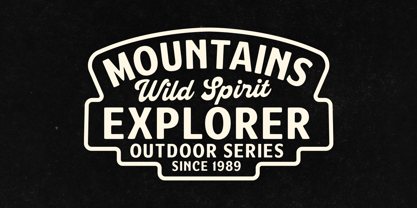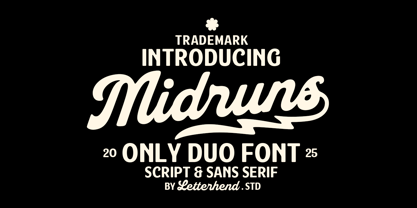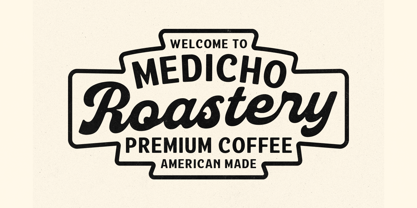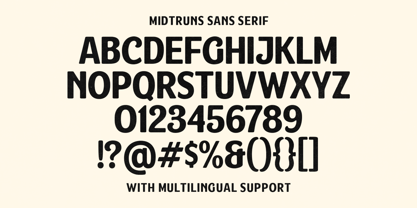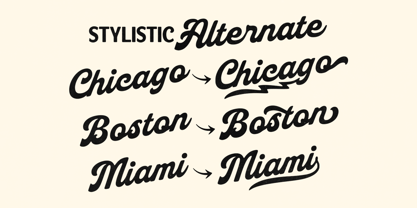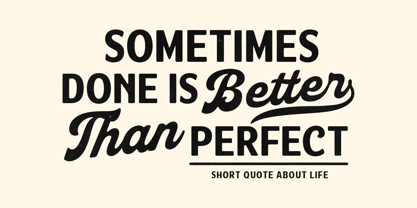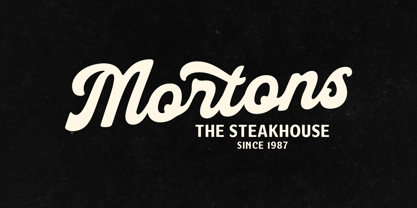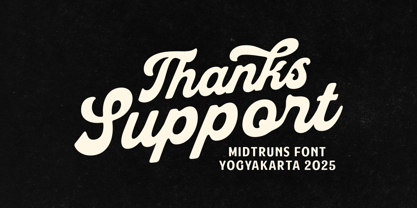
Midruns
by Letterhend
Midruns is a dynamic duo font that combines bold script and sans-serif styles, perfect for adding a vintage yet modern touch to your designs. With its smooth curves, retro aesthetic, and strong presence, this font is ideal for logos, branding, packaging, apparel, signage, and social media graphics. The script font exudes energy and personality, while the sans-serif counterpart ensures clarity and versatility.
Features :
• Uppercase & lowercase
• Numbers and punctuation
• Alternates Character
• Multilingual support